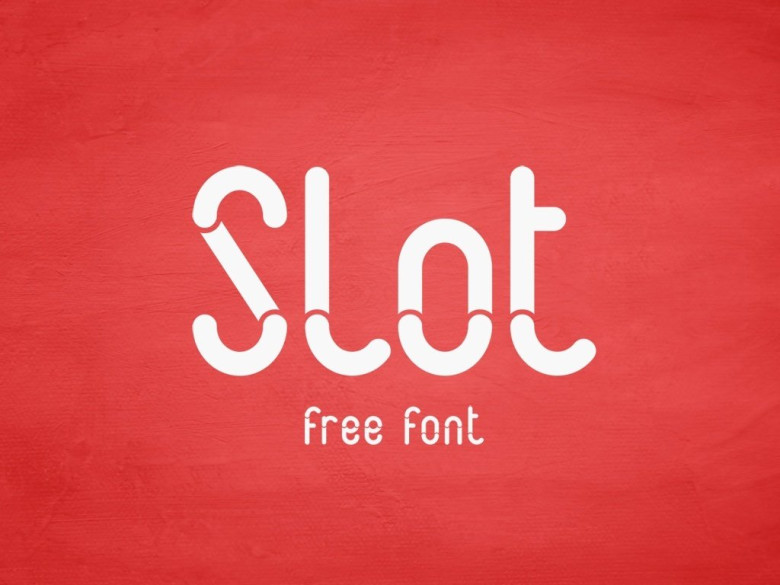
Slot Font
Introducing to you a new font Display. Slot Font designed by Adrien Coquet & Hugo Dath. Slot is a rounded font with a semicircle pattern.  Slot is tottaly free both for personnal and commercial projects.